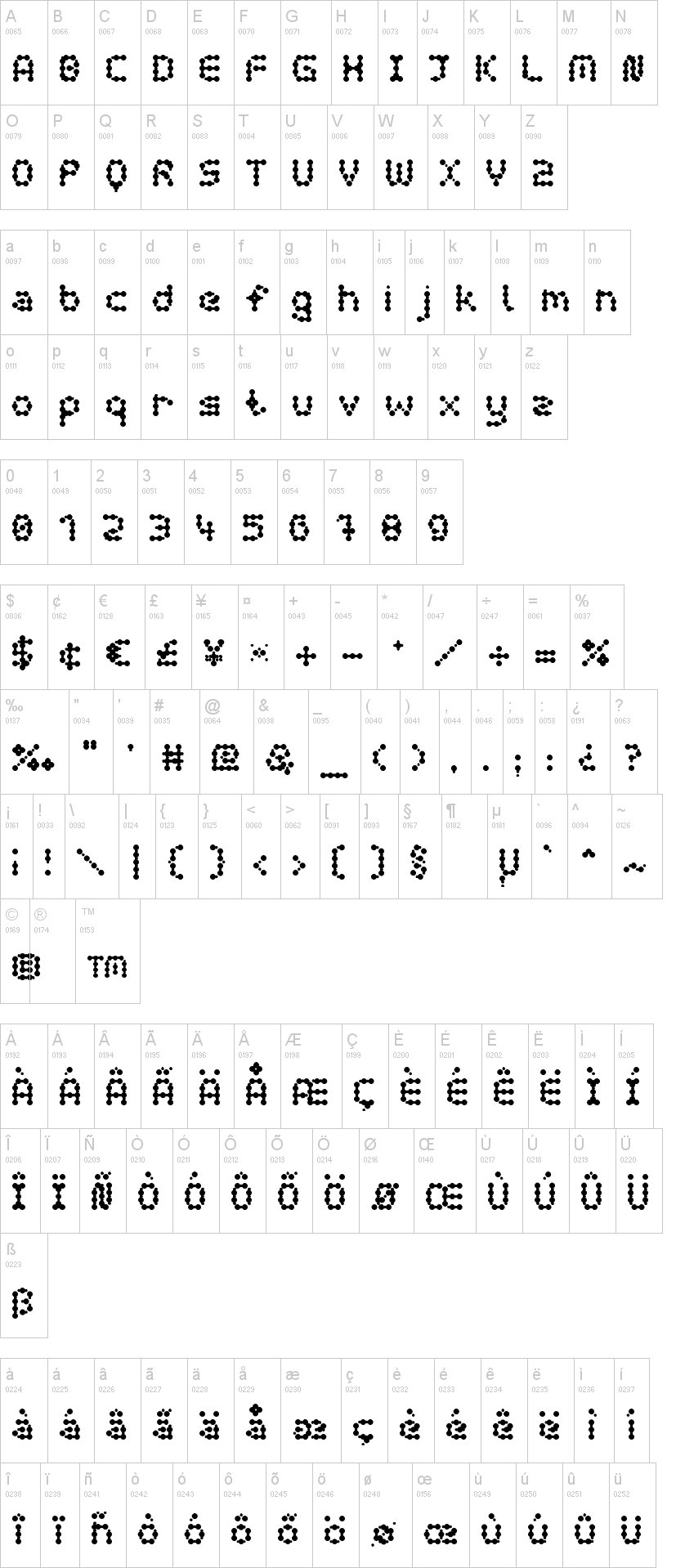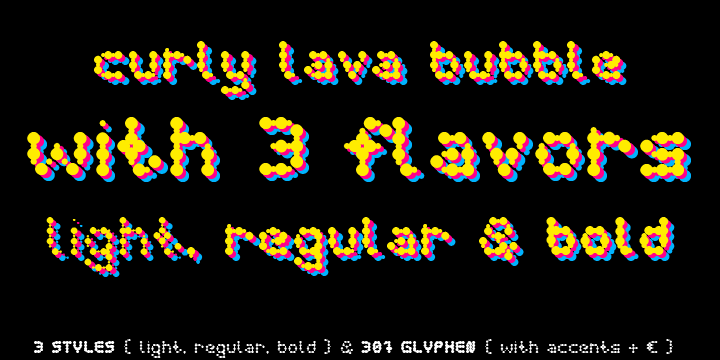
curly lava bubble.ttfcurly lava bubble_bold.ttfNote of the authorHeadline Font / Display Font / Deco Font "curly lava bubble"
with 3 stlyes (regular, bold, light) & 307 glyphs inkl. accents &